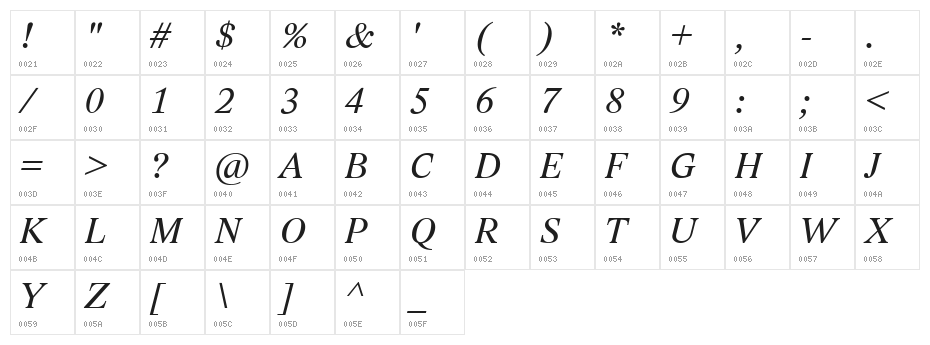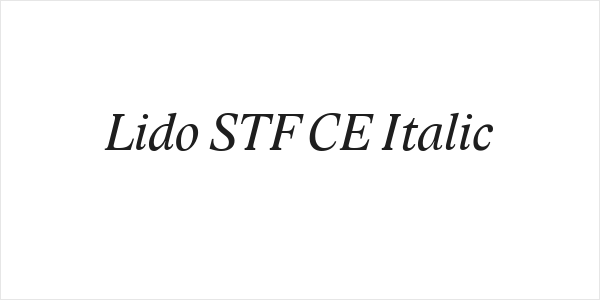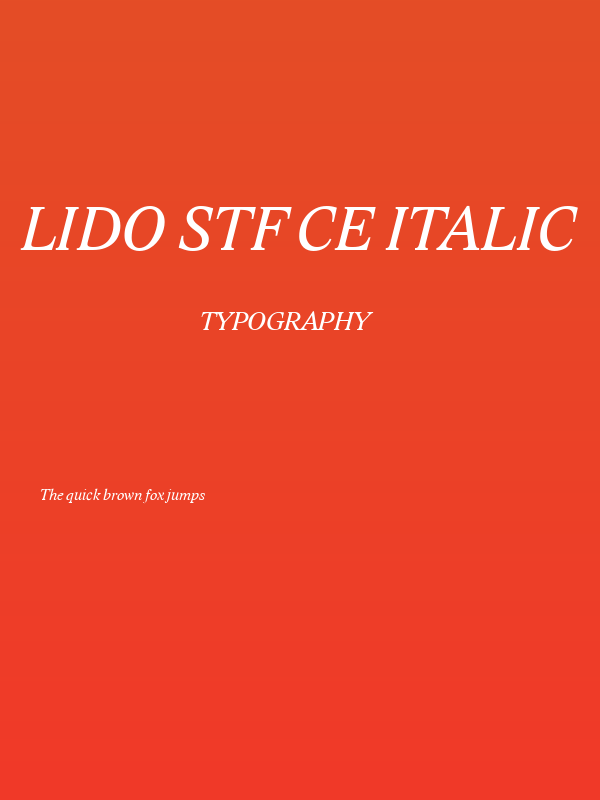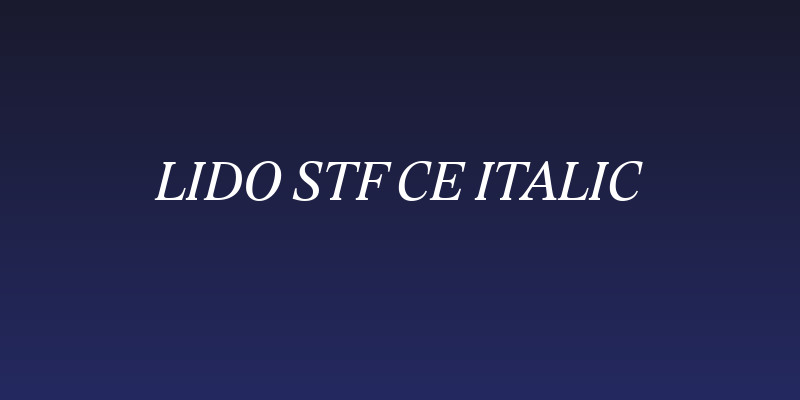
Lido STF CE Italic Font
Lido STF CE Italic Description
This font features a classic serif design with elegant, flowing lines and a distinct italic style. The characters are slightly slanted, giving a sense of motion and sophistication. The serifs are pronounced, adding a touch of formality and tradition. The uppercase letters are tall and commanding, while the lowercase letters maintain a consistent flow, enhancing readability. The numerals are clear and well-proportioned, making them suitable for various applications. Special characters are included, maintaining the font's overall aesthetic. This font is ideal for projects that require a touch of elegance and readability.
| Proposed Projects | Ideal for book covers, formal invitations, editorial design, and branding materials. |